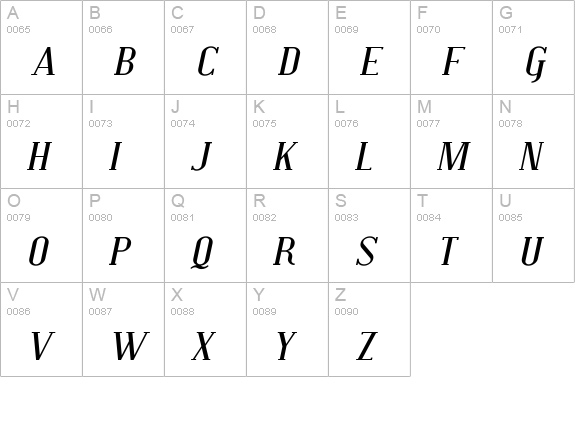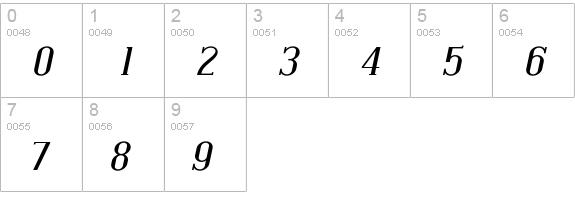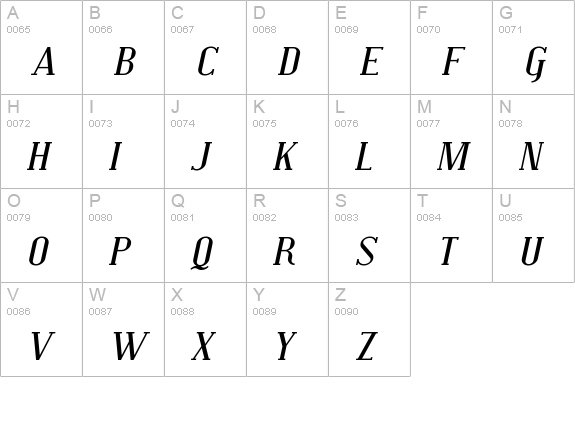
Covington Exp Italic Font Details
Covington Exp Italic is a distinctive, italic variant in the Covington typeface family \xE2\x80\x94 well suited to design and typography projects.
Covington Exp Italic font is a sleek and sophisticated typeface that exudes elegance and modernity. With its italicized style, this font adds a touch of flair and creativity to any design project. The slender letterforms and subtle curves create a sense of movement and dynamism, making it perfect for adding a stylish touch to headings, quotes, and branding materials. What sets Covington Exp Italic font apart is that it is available for free download at FontsMarket.com. This means that you can easily access and use this high-quality font for your personal and commercial projects without any cost. Whether you are a designer, blogger, or business owner looking to elevate your visuals, Covington Exp Italic font is a great choice to make your designs stand out. Download it today and add a touch of sophistication to your projects!